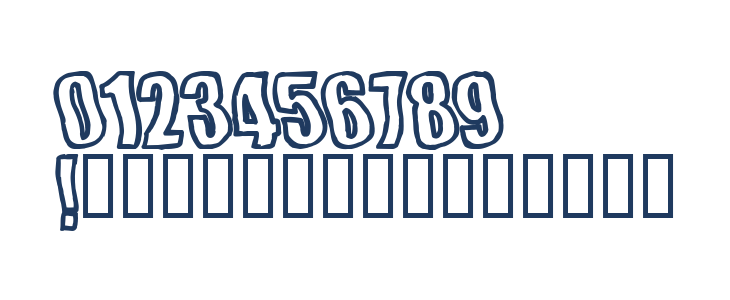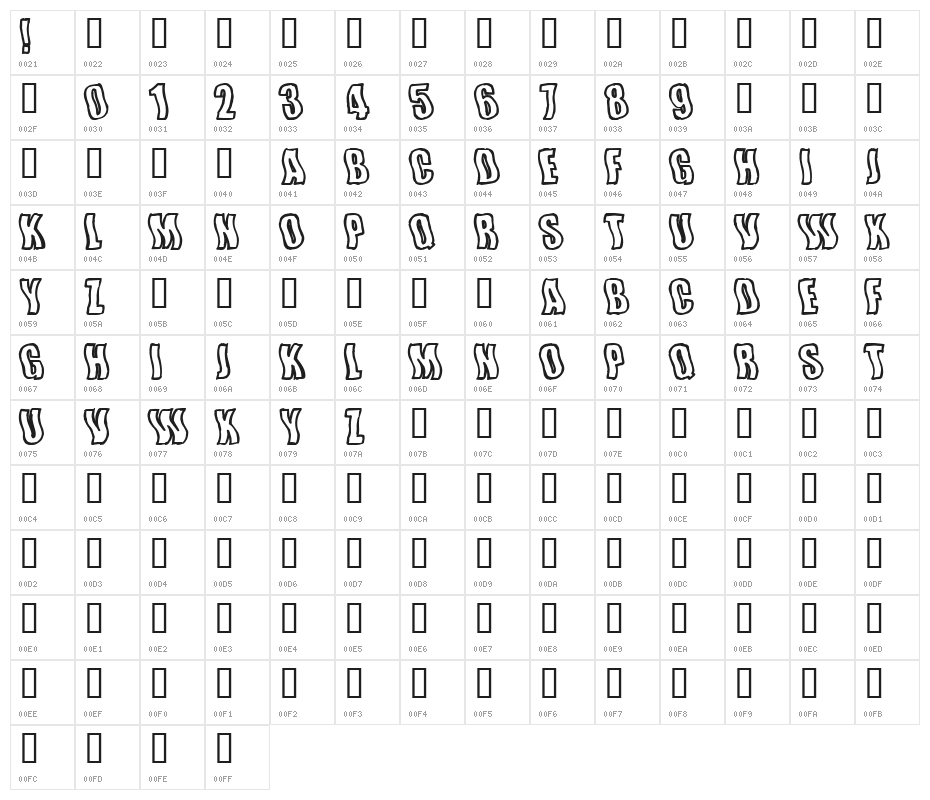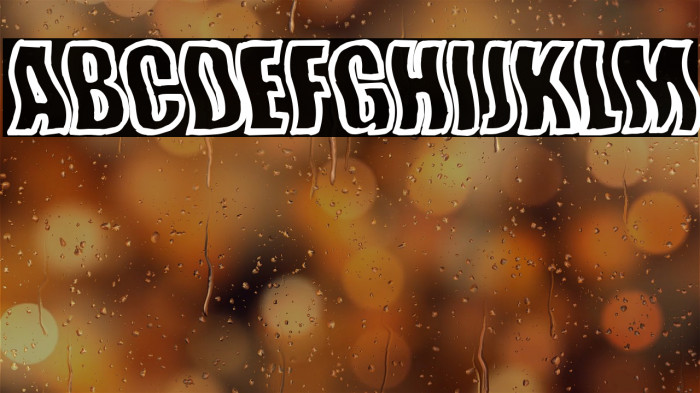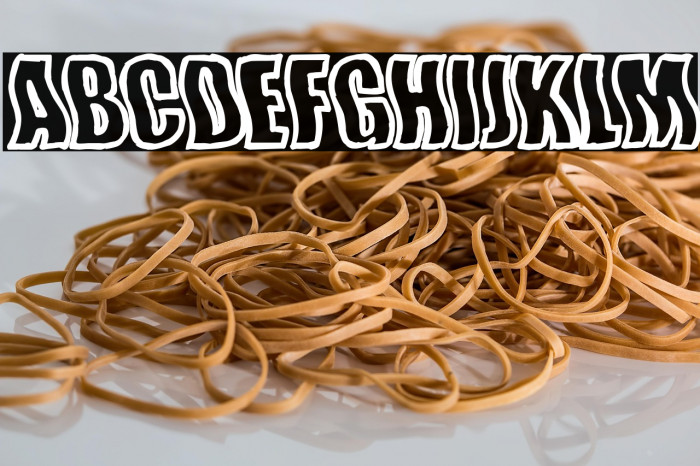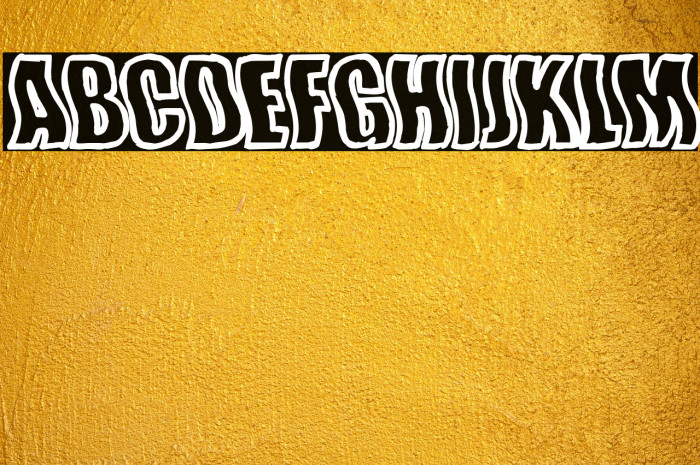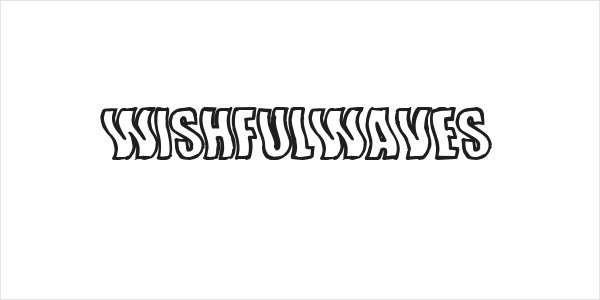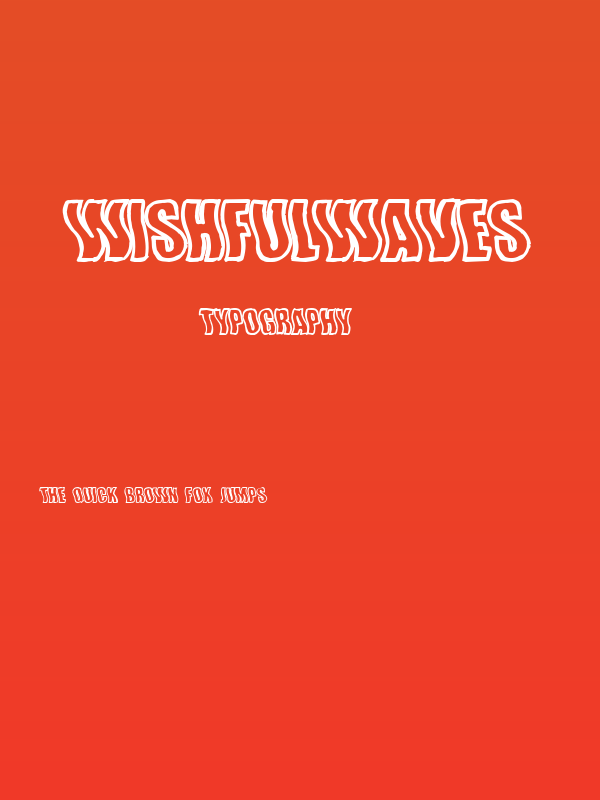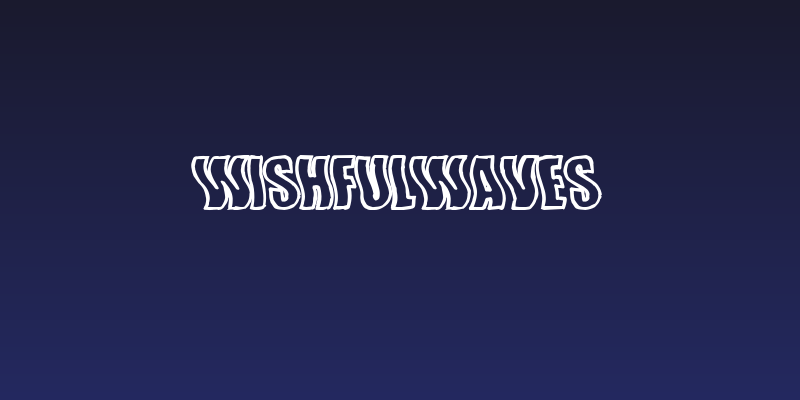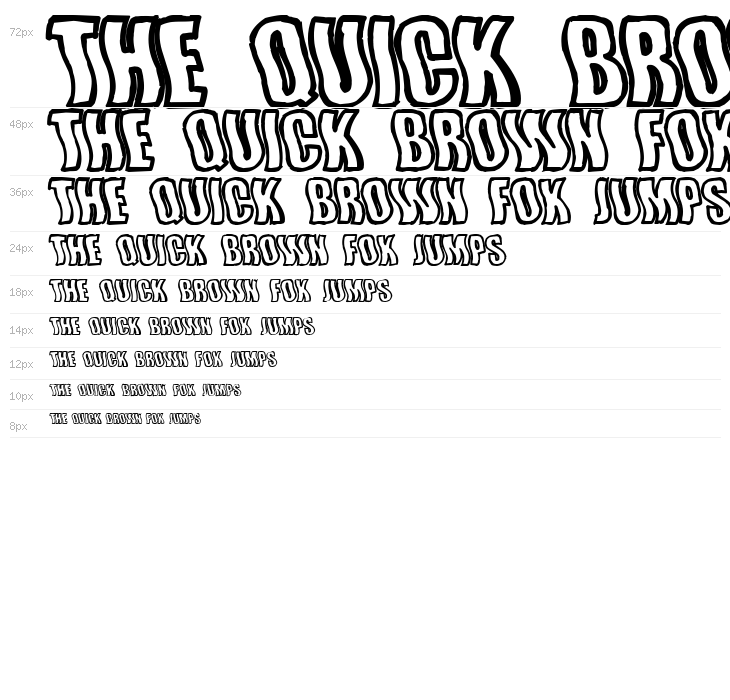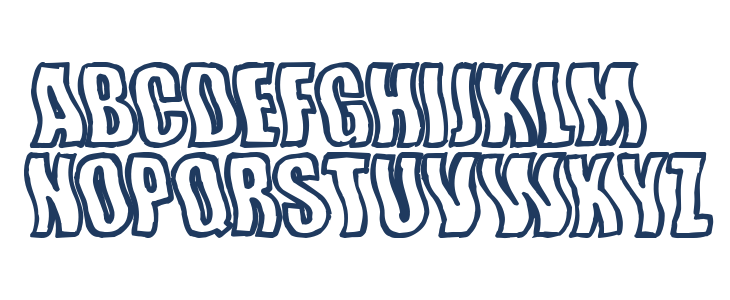
WishfulWaves Font
WishfulWaves Description
This font features a bold and playful design with a wavy, dynamic appearance. The characters are outlined with a thick black stroke, giving them a cartoonish and energetic feel. The letters are uppercase and have a consistent height, while the numbers and special characters maintain the same lively style. The font's unique wave-like distortion adds a sense of movement and fun, making it ideal for eye-catching designs.
| Overall Style | Playful, Energetic, Cartoonish |
| Use Case | Headlines, Posters, Invitations |
| Proposed Projects | Perfect for children's book covers, playful posters, party invitations, and any project needing a fun, dynamic look. |